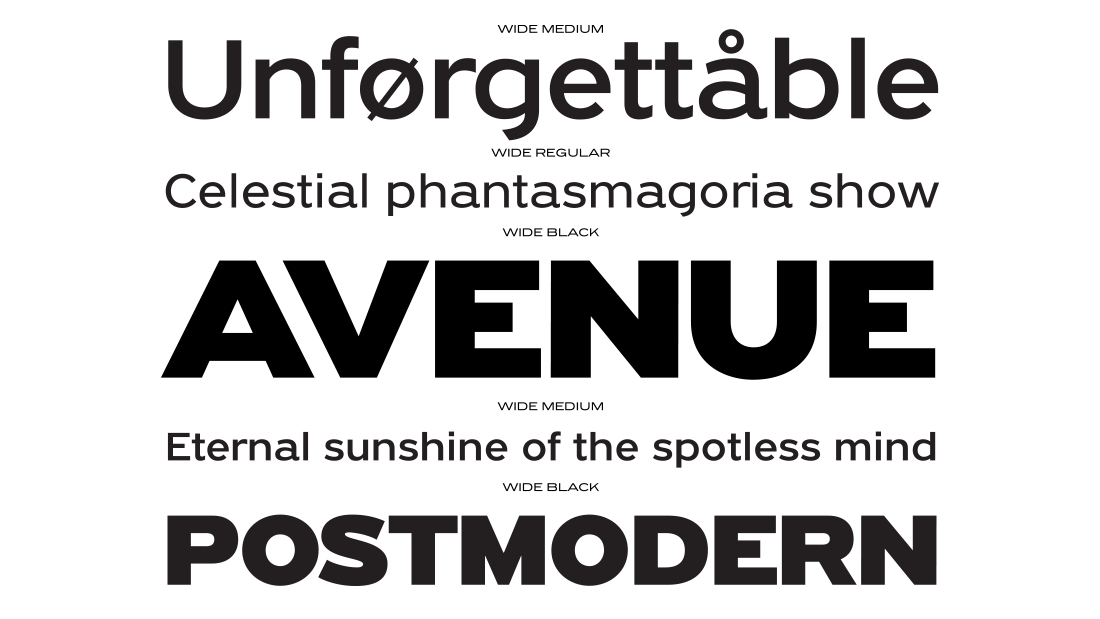
Back Story: Grand Gothik got its start in 2017 as a bespoke typeface for the surfer magazine Kyma (which is Greek for “wave”). It’s the first commercial multiscript variable typeface from an independent type foundry. Taking late 19th- and early 20th-century European and American grotesques as a starting point, the font family pays homage to the development of gothic typefaces over the years, from mid-century movie theater marquees and new wave cinematography to American highway signage and telephone directories.
Why’s it called Grand Gothik? “The name reflects Grand Gothik’s versatility as a fully-functional variable font and its interpretation of a vast array of gothic styles,” says Panos Vassiliou, director at Parachute. “The ‘c’ in ‘gothic’ is replaced by a ‘k’ to highlight the crisp and contemporary nature of the type system.”
What are its distinguishing characteristics? Grand Gothik’s comprehensive design space includes three axes: weight, width, and a separate one for italics. It is available as a variable font or as five separate open-type families: compressed, condensed, normal, wide, and extended, each with nine weights from Extra Thin to Black, plus italics. The type system supports an extended array of languages and scripts including Latin, Greek, and Cyrillic.
Unlike most grotesques, this typeface features sharp joints rather than a smooth connection where curved strokes and stems merge into each other. Open counters with enhanced white space and curved strokes with oblique terminals increase clarity at small sizes. Ascenders were extended, descenders shortened, and contrast was tweaked for maximum legibility.
Specific characters got some individual love as well: Numbers were redesigned according to their historical references, and the letter “o” in the wide version does not follow the extended form of other characters, becoming an almost round circle instead. Bonus: there’s an extended character set of weather icons, numeral symbols, and emojis (plus a Bitcoin symbol).
Each of Grand Gothik’s three stylistic alternates draws upon a specific period and style, from the rather crude appearance of late 19th-century grotesques all the way to their more graceful contemporary counterparts. The multi-functional default version starts with squared-off stems and its letter “a” is designed with a spur. The first variation retains the squared-off stems but the “a” loses its spur, giving it a more corporate texture, while the second, more eclectic version swaps the squared-off stems for slanted ones. The third and most vibrant variation, a nod to 19th-century European Grotesque styles, features a higher middle stroke on letters such as “E,” “F,” and “H,” pushing the design of other characters such as “B,” “K,” “P,” and “R,” in the same design direction, and has alternate versions of the lowercase letters “a” and “t” to best reflect that era.
What should I use it for? Grand Gothik fits a multitude of typographic needs. Its first variation is the most serious looking, making it a fine choice for corporate applications. The second variation, a bit more vibrant and refined in nature, works beautifully with modern publications. The typographic voice of the third variation, characterized by the vibrant raw texture of 19th century European grotesques, hits home with magazines, books, posters and signage.
What other typefaces do you like to pair it with? Keep it simple: Regal, Bodoni, or Caslon.